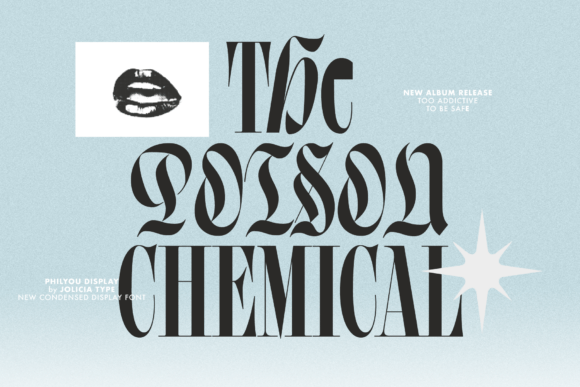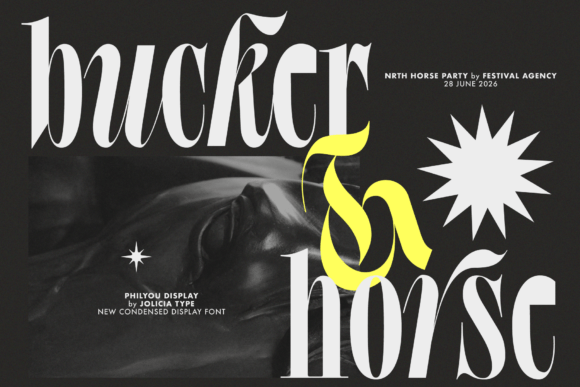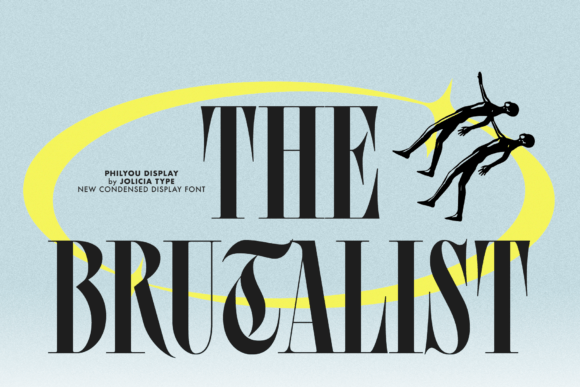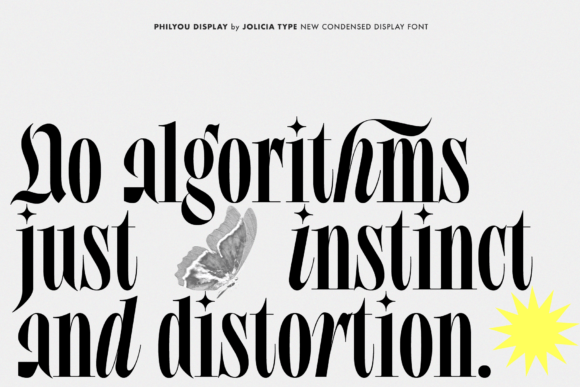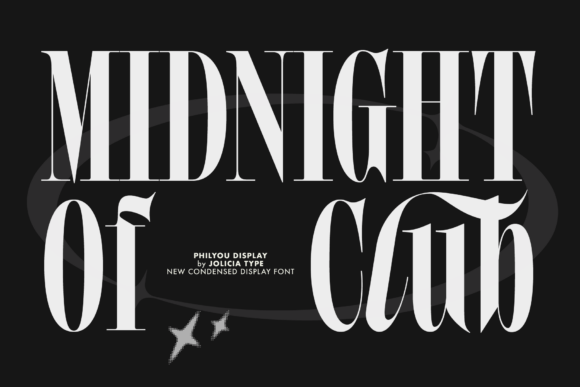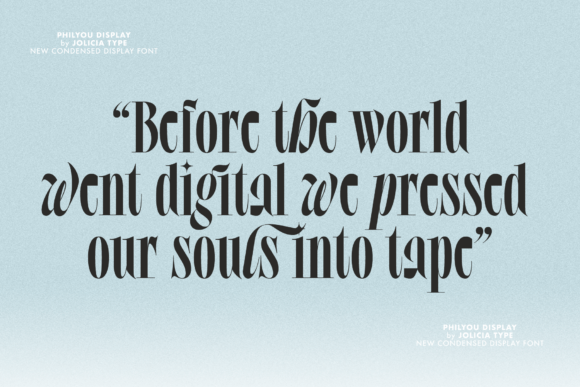
Introduction to Philyou Display Font
As designers, we’ve all been there – staring at a blank page, trying to find the perfect font to bring our creative project to life. But what if you could have it all in one? Introducing the Philyou Display Font, a game-changing typeface that combines classic elegance with dramatic flair.
This stunning font family boasts three distinct styles in one, making it a valuable resource for designers looking for high-quality typography. With its transparent background and versatility, Philyou Display Font is perfect for any creative project, from premium branding to fashion layouts. Whether you’re working on a design project with a free download or a high-end client, this font is sure to elevate your work and leave a lasting impression.
But what sets Philyou Display Font apart is its unique blend of Didot-style elegance, Blackletter-inspired uppercase alternates, and italic lowercase alternates. This combination creates a refined, luxurious feel that’s perfect for any design project, and its flexibility makes it an essential design resource for any designer looking to take their work to the next level.
Key Features of Philyou Display Font
- High-quality display font designed for creative projects, ideal for use as a design resource.
- Features a transparent background, making it perfect for use on both light and dark backgrounds.
- Comes in a single font weight, making it easy to use in a variety of creative projects.
- Supports various languages, including Latin, Greek, and Cyrillic scripts.
- Designed to be highly legible, even at small font sizes, making it perfect for use in titles, headings, and body text.
Honest Review: Philyou Display Font
I recently stumbled upon the Philyou Display Font, and I must say it’s a great addition to any designer’s toolkit. This high quality font is perfect for creative projects that require a touch of elegance and sophistication.
- ✨ Versatile design: The transparent background makes it perfect for any design project.
- ✨ High quality: The font is well-designed and looks great on any device.
However, I do have a few limitations to mention. ⚠️ The font is only available in a single weight, which might limit its use in certain design scenarios. Additionally, the font doesn’t come with any ligatures or swashes, which might be a drawback for some designers.
Overall, I’m impressed with the Philyou Display Font. It’s a great design resource that’s perfect for creative projects. While it has a few limitations, it’s definitely worth checking out.
Tips for Getting the Most Out of Philyou Display Font
Experiment with different font sizes and colors to create a visually appealing design. Use the transparent background to create a sense of depth and dimension. Combine the Philyou Display Font with other design elements to create a unique and creative project.
The Philyou Display Font is perfect for creating titles, headings, and captions for your designs. It’s also great for creating quotes, phrases, and other text-based elements. With its high quality and transparent background, you can use it for a wide range of creative projects, from graphics and illustrations to presentations and documents.